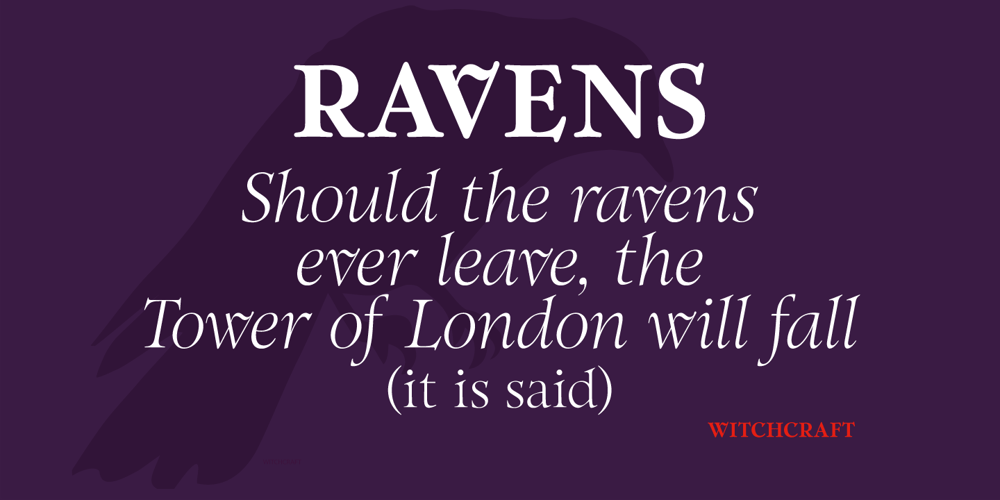
Witchcraft Font Family was designed by Alan Meeks and published by Alan Meeks. Witchcraft contains 6 styles and family package options. Witchcraft is a classic Roman font in three weights and corresponding italics. The ‘v’,’w’,and ‘y’, use the old style join at the top reminiscent of Georg Belwe’s Roman design “Belwe”. The large x-height makes for a powerful headline font but excellent for text setting especially in the lighter weights.